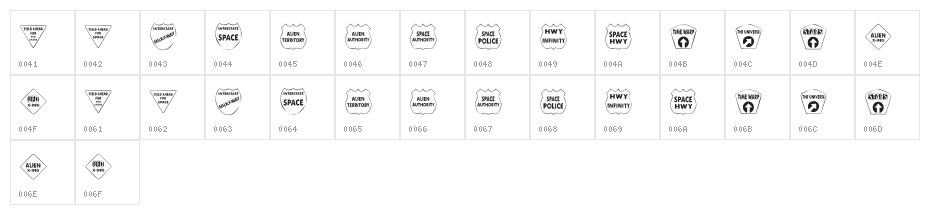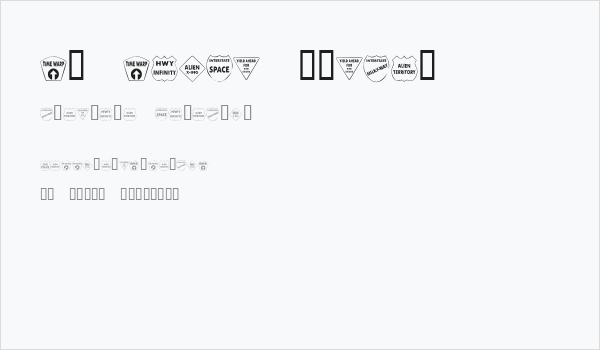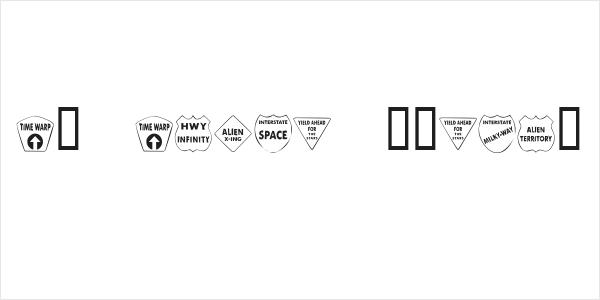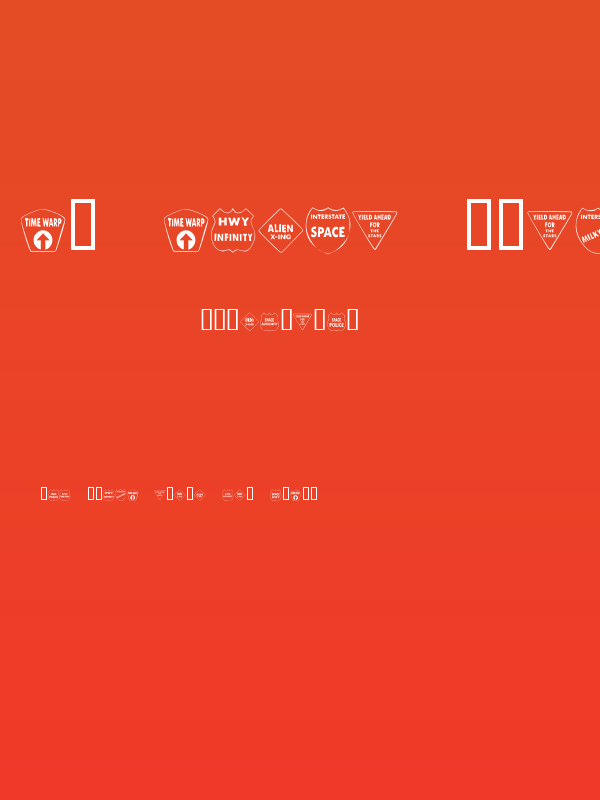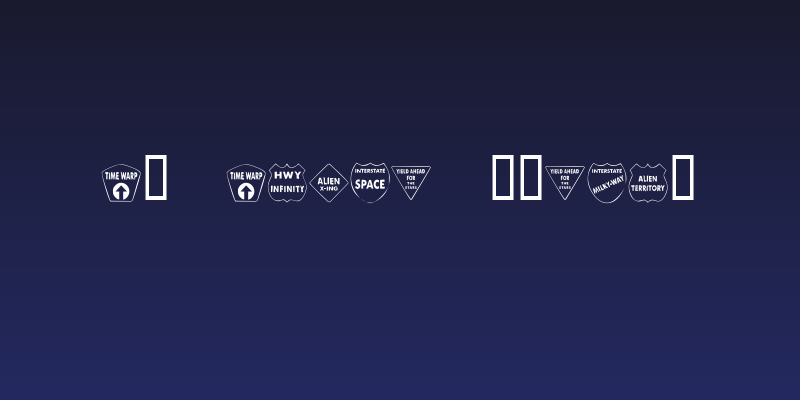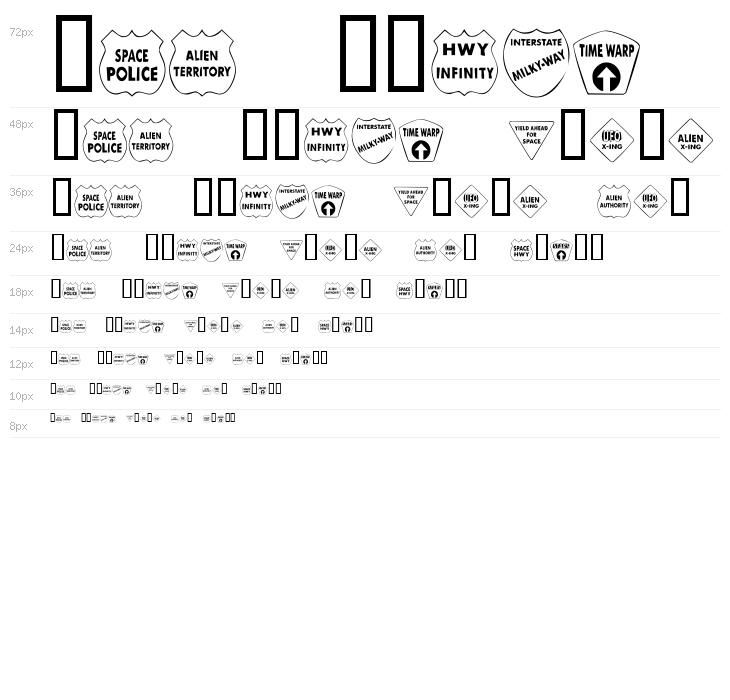
KR Kinda Spacey Font
KR Kinda Spacey Description
This font features a playful and thematic design, incorporating elements reminiscent of space and extraterrestrial motifs. Each character is enclosed within a shield-like shape, resembling road signs with quirky, sci-fi-inspired text. The font is highly decorative, with bold outlines and a distinct, whimsical style that captures the imagination. The use of uppercase and lowercase letters is consistent, with each character maintaining a uniform size and shape. The font's unique design makes it ideal for projects that require a fun and engaging visual element, particularly those related to science fiction or space-themed content.